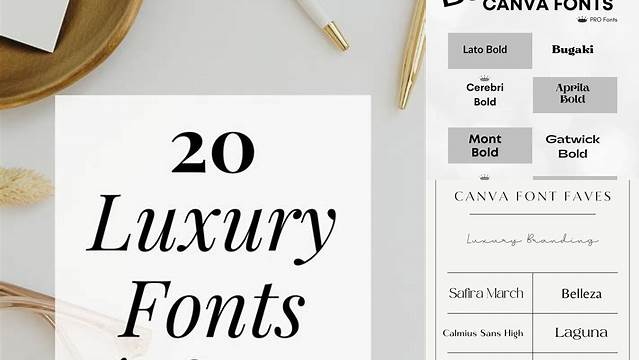
Luxury Bold Fonts: Design Like A Pro In Canva
Hey guys! Are you looking to seriously upgrade your Canva designs? Then you've come to the right place! Let's dive into the world of luxury bold fonts that can transform your creations from basic to breathtaking. In this article, we'll explore a curated selection of fonts perfect for adding a touch of elegance, sophistication, and high-end appeal to your projects. Whether you're crafting logos, marketing materials, social media graphics, or website headers, the right font can make all the difference. We will explore a range of sans-serif and serif options, discussing what makes them unique and how best to use them. We'll also touch on font pairing and how to create visually stunning designs by combining different typefaces harmoniously. So, buckle up and prepare to discover the best luxury bold fonts Canva has to offer, and learn how to use them to take your designs to the next level!
Why Choose a Luxury Bold Font?
So, why should you even bother with luxury bold fonts, you ask? Great question! Using luxury bold fonts is a surefire way to inject sophistication and elegance into your designs. Think about it: fonts are like the voice of your design. A generic, plain font can make your project seem uninspired, while a well-chosen luxury font can instantly communicate quality, exclusivity, and attention to detail. These fonts often feature unique characteristics, such as elegant serifs, refined letterforms, and balanced proportions. These details contribute to a polished and professional look that can significantly enhance your brand image. Moreover, using bold versions of these fonts can add emphasis and impact, making your message stand out. Whether you're designing a logo for a high-end fashion brand, creating marketing materials for a luxury hotel, or simply wanting to add a touch of class to your social media graphics, a luxury bold font is an invaluable asset.
Furthermore, the psychology of fonts plays a crucial role in how your audience perceives your message. Luxury fonts evoke feelings of trust, reliability, and prestige. These fonts are typically used by brands that want to be seen as established, reputable, and high-quality. For example, a classic serif font like Baskerville or Garamond can convey a sense of tradition and authority, while a modern sans-serif font like Helvetica or Futura can communicate innovation and sophistication. By carefully selecting a font that aligns with your brand values, you can effectively communicate your message and build a strong brand identity. Therefore, investing in high-quality fonts is an investment in your brand's success. They help create a lasting impression and differentiate you from the competition.
Top Luxury Bold Fonts on Canva
Alright, let's get to the good stuff! Here are some top-notch luxury bold fonts you can find right within Canva. I will share the font and how you can use it. Let's get started!
1. Butler
Butler is a fantastic serif font that exudes elegance and sophistication. With its refined letterforms and classic proportions, it's perfect for headlines, logos, and branding materials. The bold version of Butler adds even more impact, making it ideal for grabbing attention and conveying a sense of authority. Use it for high-end fashion brands, luxury hotels, or any project where you want to communicate quality and prestige.
2. Playfair Display
Playfair Display is another excellent serif option that's both stylish and versatile. Its high contrast and delicate serifs give it a luxurious feel, while its bold weight adds a touch of modernity. This font is great for headlines, posters, and editorial designs. Pair it with a simple sans-serif font for body text to create a visually appealing contrast.
3. Montserrat
For a modern and clean look, Montserrat is a solid choice. This sans-serif font is highly legible and versatile, making it suitable for a wide range of applications. The bold version of Montserrat adds emphasis and clarity, making it perfect for headlines, subheadings, and call-to-actions. Use it for tech startups, corporate websites, or any project where you want to convey a sense of innovation and professionalism.
4. Raleway
Raleway is a sleek and sophisticated sans-serif font that's both modern and elegant. Its slightly condensed letterforms give it a unique character, while its bold weight adds impact and presence. This font is great for logos, headlines, and branding materials. Use it for design agencies, creative studios, or any project where you want to convey a sense of style and innovation.
5. Bebas Neue
If you're looking for a tall and impactful sans-serif font, Bebas Neue is an excellent option. Its clean lines and geometric forms give it a modern and minimalist look, while its bold weight adds emphasis and visibility. This font is perfect for headlines, posters, and signage. Use it for sports brands, fitness studios, or any project where you want to make a bold statement.
Font Pairing Tips for Luxury Designs
Okay, you've chosen your luxury bold font, but how do you make sure it plays nice with other fonts in your design? Font pairing is key to creating visually harmonious and professional-looking designs. Here are a few tips to keep in mind:
- Contrast is Key: Pair a bold luxury font with a simpler, more neutral font for body text. This creates a visual hierarchy and makes your design more readable. For example, you could pair Playfair Display with Open Sans or Montserrat with Lato.
- Consider the Mood: Choose fonts that complement each other in terms of style and tone. For example, a classic serif font like Butler pairs well with a traditional sans-serif font like Helvetica, while a modern sans-serif font like Raleway pairs well with a geometric sans-serif font like Futura.
- Limit Your Choices: Stick to a maximum of two or three fonts per design to avoid overwhelming your audience. Too many fonts can make your design look cluttered and unprofessional.
- Use a Font Pairing Tool: If you're not sure where to start, try using a font pairing tool like FontPair or Canva's font combination suggestions. These tools can help you discover new and interesting font combinations that you may not have considered otherwise.
Where to Use Luxury Bold Fonts
So, where can you actually use these amazing fonts? The possibilities are endless, guys! Here are a few ideas to get your creative juices flowing:
- Logos: A well-chosen luxury bold font can make your logo stand out and communicate your brand values effectively. Use it to create a memorable and impactful logo that represents your brand's unique identity.
- Marketing Materials: From brochures to business cards, luxury bold fonts can add a touch of elegance and sophistication to your marketing materials. Use them to create a cohesive and professional brand image.
- Social Media Graphics: Stand out on social media with eye-catching graphics that feature luxury bold fonts. Use them to create engaging content that captures your audience's attention and drives results.
- Website Headers: Make a strong first impression with a website header that features a luxury bold font. Use it to communicate your brand's message and attract new visitors.
- Invitations: For high-end events, invitations that showcase luxury bold fonts can set the tone and communicate the level of sophistication expected.